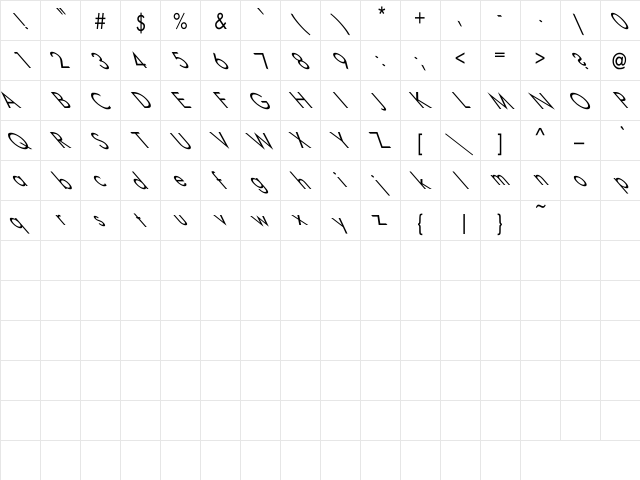
Uphill Regular Font Preview
Uphill Regular
Uphill Regular Font Details
Design Context for Uphill Typeface
Uphill is a composed and adaptable typeface that performs quietly and consistently across a wide range of design contexts.